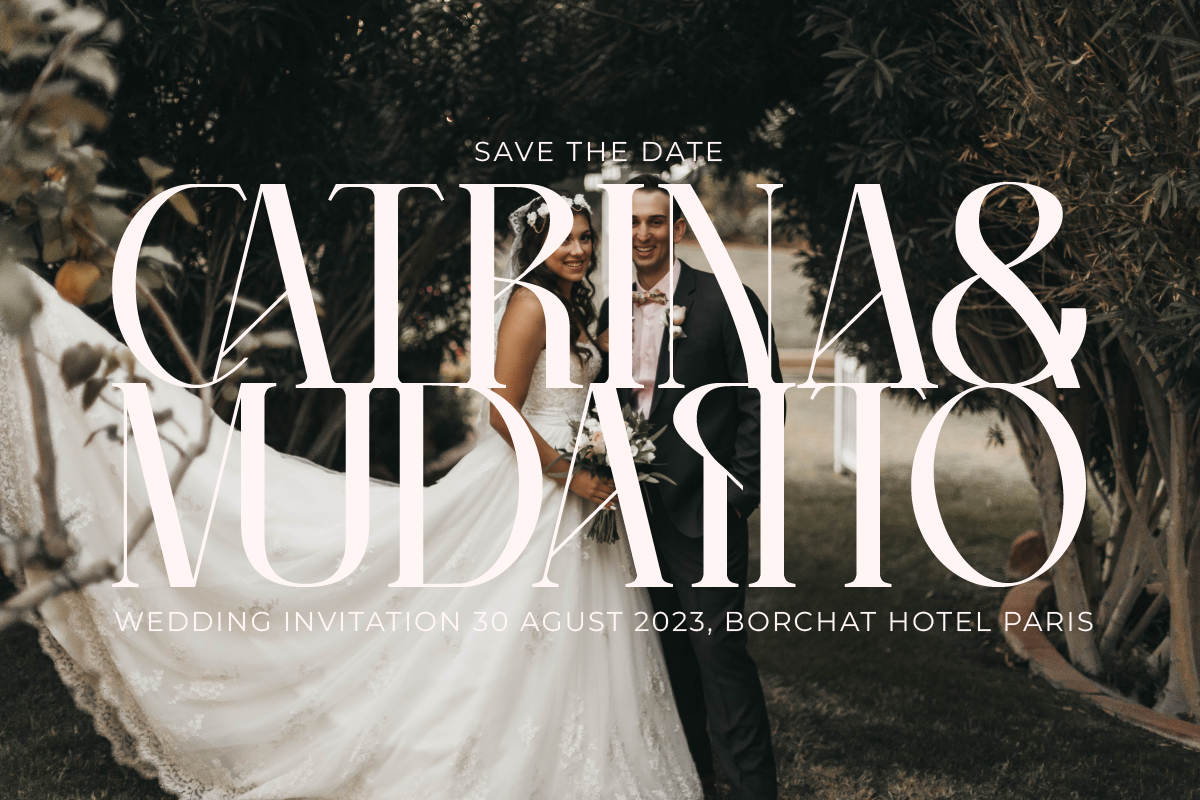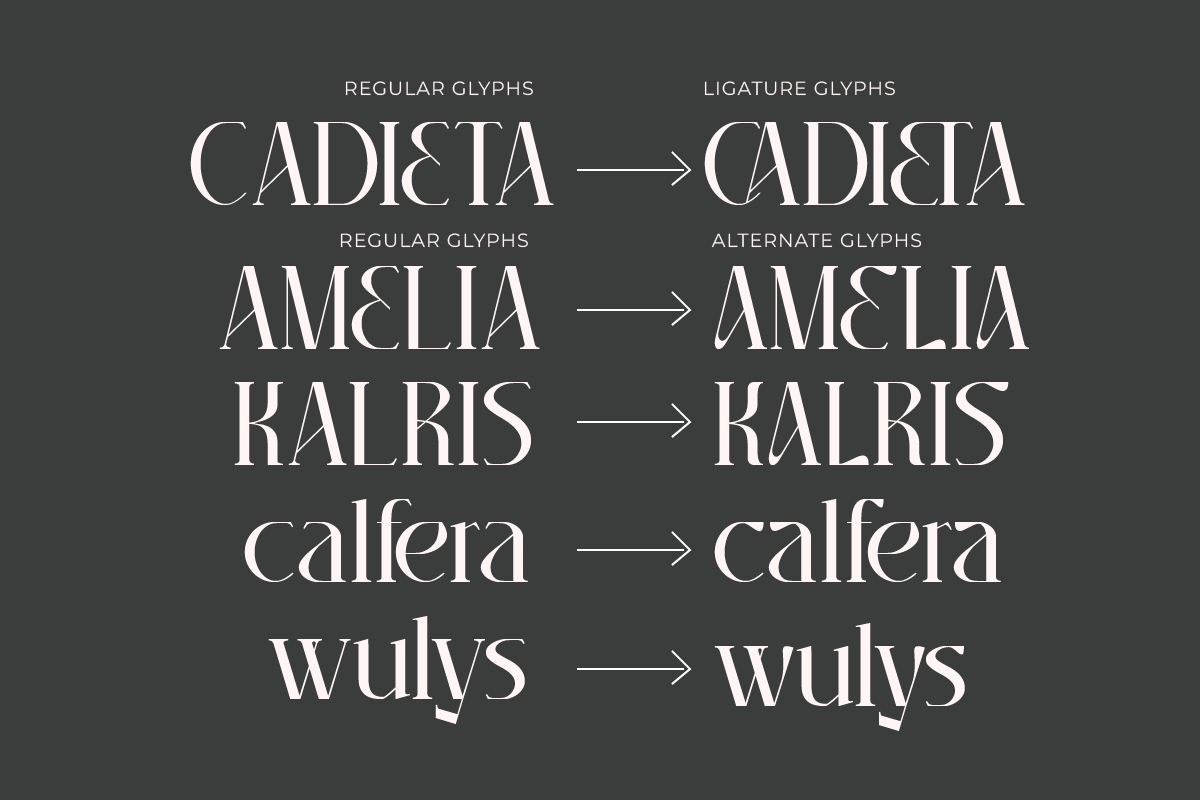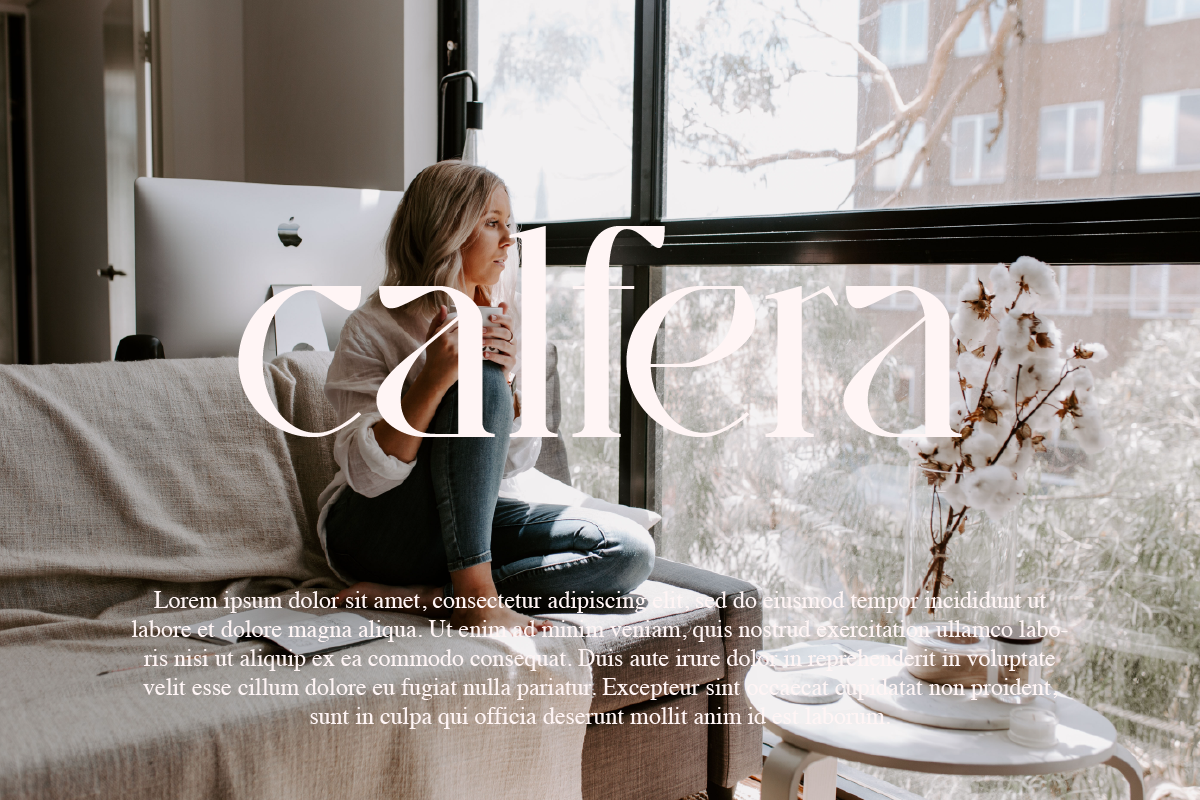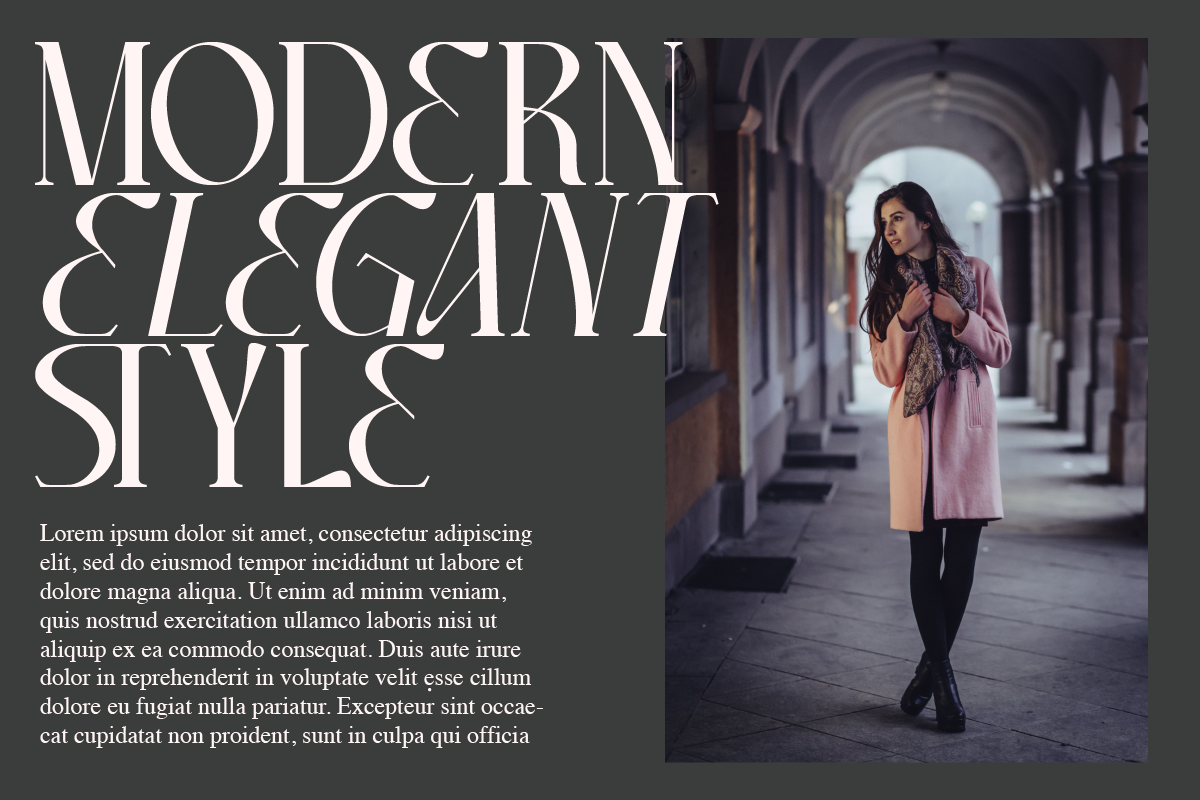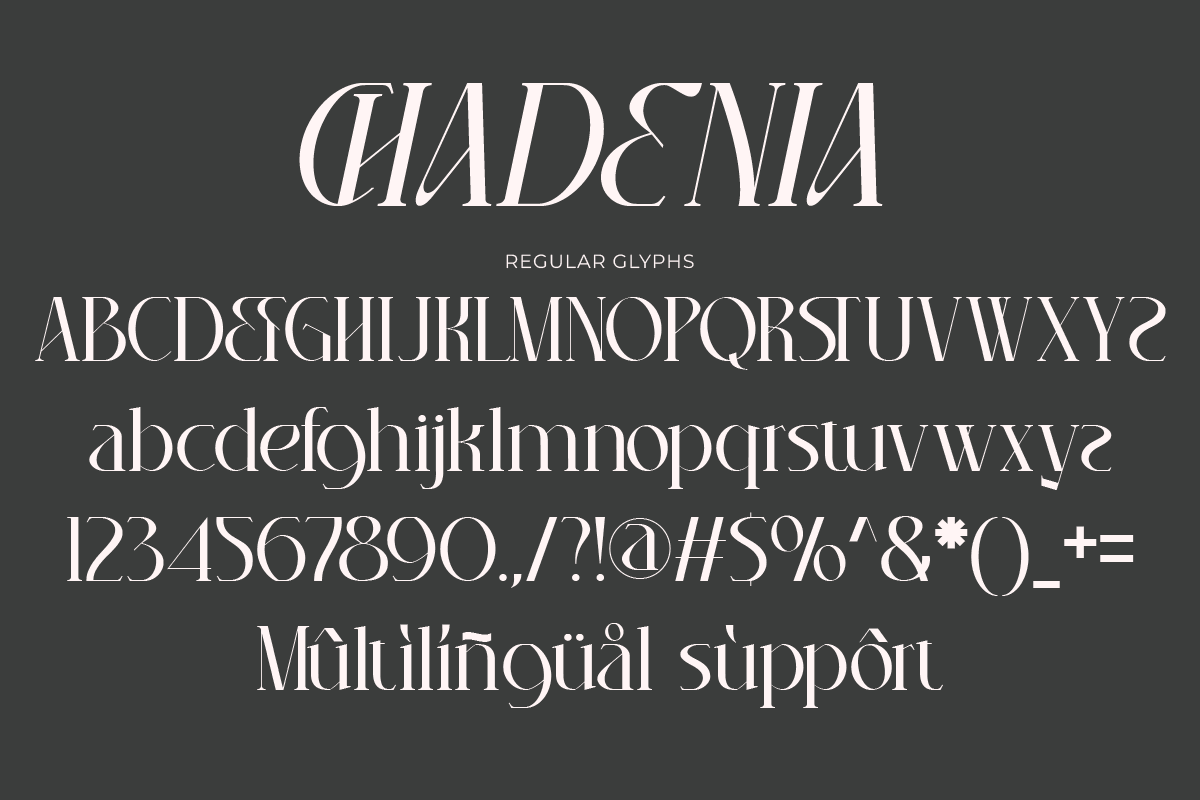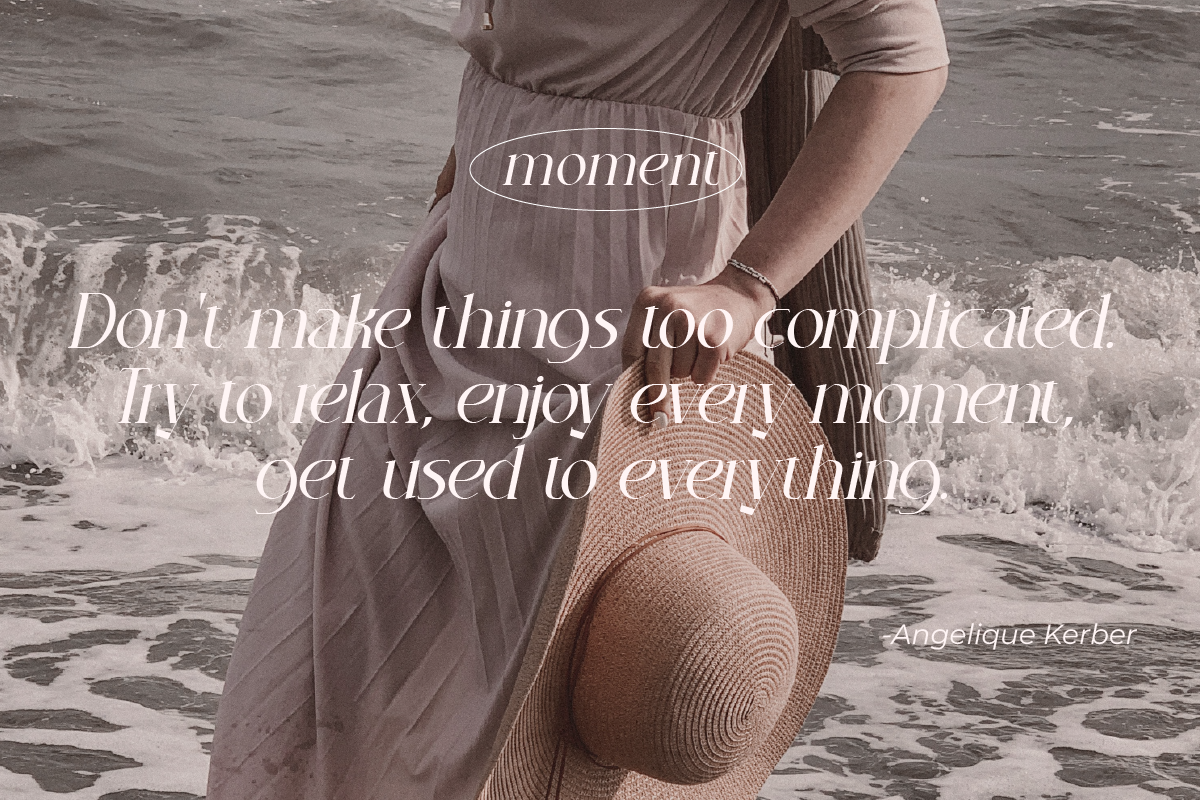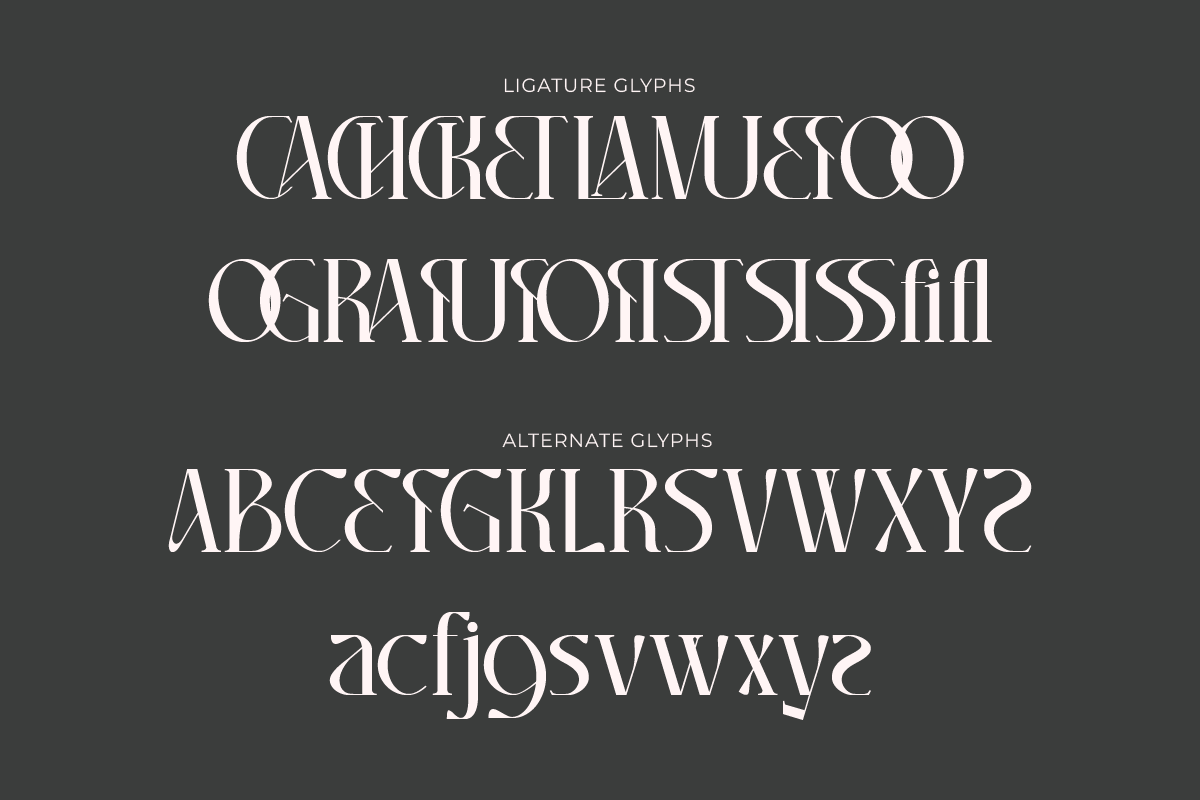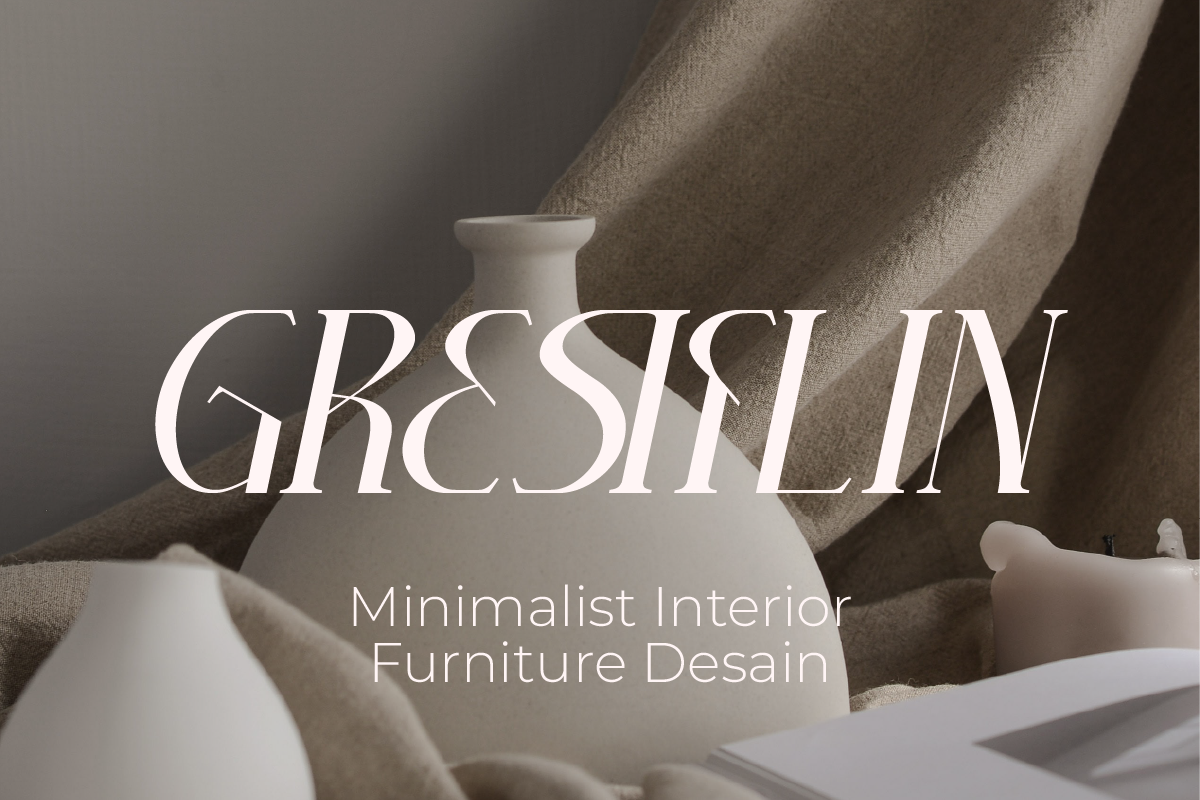
Chadenia
Chadenia Modern Elegant serif Font typeface with beautiful alternate, special glyphs, ornament and multilingual support. It's a very versatile font that works great in large and small sizes. Perfect for editorial projects, Logo design, Clothing Branding, product packaging, magazine headers, or simply as a stylish text overlay to any background image.
Features: Alternate & Ligature Lowercase and Uppercase Numerals & Punctuation